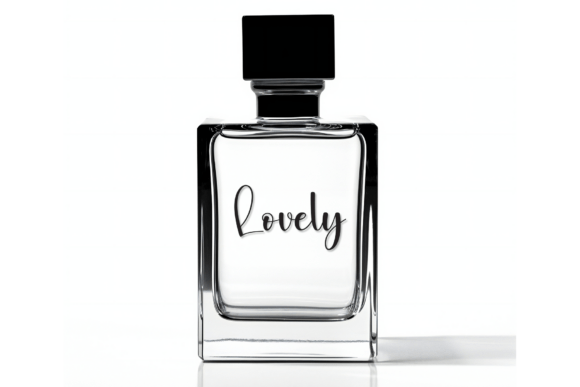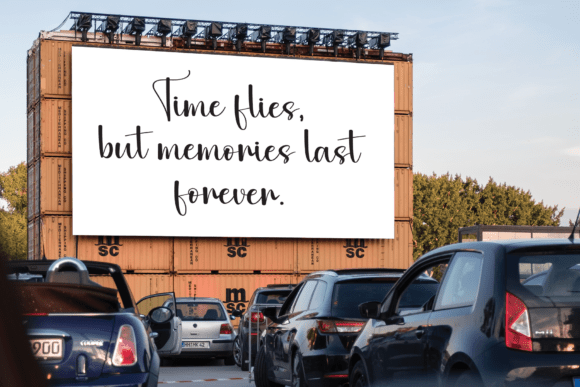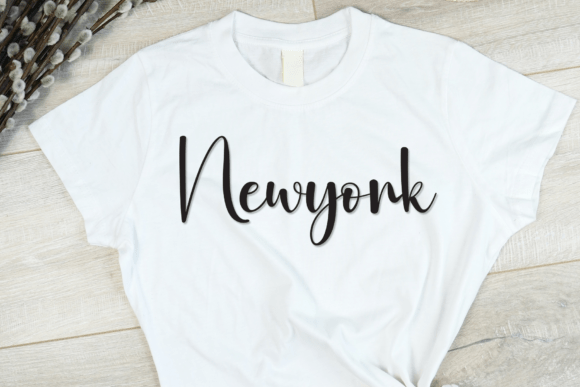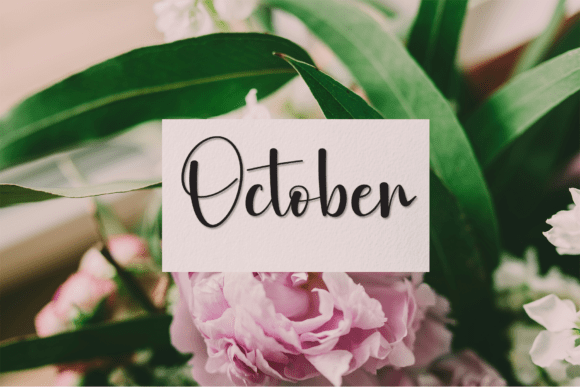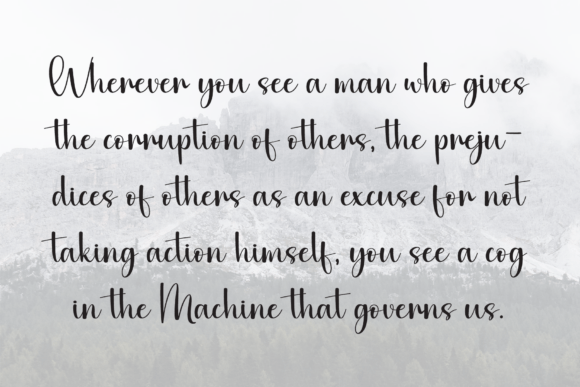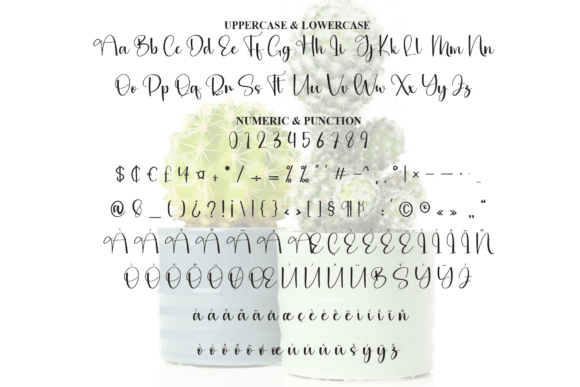
Cactus Font: Elevate Your Design with a Whimsical, Handwritten Touch
Are you searching for a font that embodies the carefree spirit of the desert? Look no further than the Cactus Font, an elegant and airy handwritten typeface that captures the whimsical, rhythmic essence of the American Southwest. With its slender, monolinear strokes and expansive, circular flourishes, Cactus Font is the perfect choice for designers and crafters seeking to add a touch of sophistication and playfulness to their projects.
A Unique Design that Stands Out
One of the standout features of Cactus Font is its high-contrast design, characterized by solid black characters surrounded by crisp, white outlines. This striking visual effect creates a sense of depth and dimensionality, giving the font a custom, hand-drawn appearance that’s sure to capture attention. The slender, monolinear strokes and expansive, circular flourishes combine to create a graceful silhouette that’s both elegant and eye-catching.
Ideal for Desert-Inspired Projects
Cactus Font is a natural fit for desert-themed lifestyle branding, botanical garden signage, and organic product packaging. The font’s whimsical, rhythmic spirit evokes the carefree, laid-back vibe of the desert landscape, making it perfect for projects that require a touch of warmth and personality. Whether you’re designing a logo, signage, or marketing materials, Cactus Font is sure to bring a unique and captivating element to your work.
Creative Possibilities Abound
But Cactus Font’s versatility extends far beyond desert-themed projects. Its elegant, handwritten aesthetic makes it an excellent choice for a wide range of creative applications, including:
- Social media headers and graphics
- Packaging design for organic and natural products
- Botanical garden signage and marketing materials
- Lifestyle branding for wellness, yoga, and outdoor enthusiasts
- Handmade crafts and DIY projects
Why Choose Cactus Font?
So why choose Cactus Font for your next project? Here are just a few reasons:
- Unique and eye-catching design: Cactus Font’s high-contrast, hand-drawn aesthetic sets it apart from more traditional fonts.
- Versatile and adaptable: Whether you’re designing for print or digital media, Cactus Font is a versatile choice that can be used in a variety of contexts.
- Elegant and whimsical: Cactus Font’s slender strokes and expansive flourishes create a sense of elegance and playfulness.
- Easy to read: Despite its ornate design, Cactus Font is surprisingly legible, making it a great choice for body text and headlines.
Tips for Using Cactus Font
To get the most out of Cactus Font, here are a few tips to keep in mind:
- Pair with contrasting fonts: Cactus Font’s bold, high-contrast design makes it a great choice for pairing with simpler, sans-serif fonts.
- Experiment with colors: Cactus Font’s solid black characters and white outlines create a striking visual effect, but don’t be afraid to experiment with different color schemes to find the perfect fit for your project.
- Use for headlines and titles: Cactus Font’s elegant, handwritten aesthetic makes it a great choice for headlines and titles, but feel free to use it for body text and other applications as well.